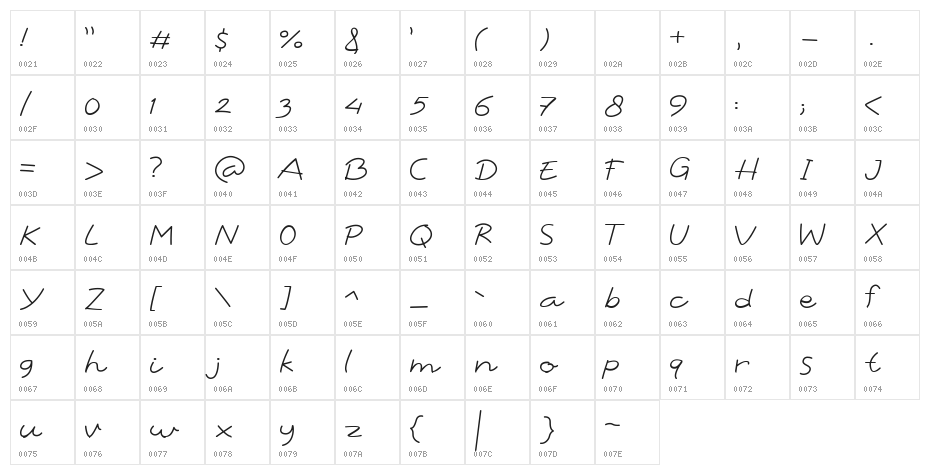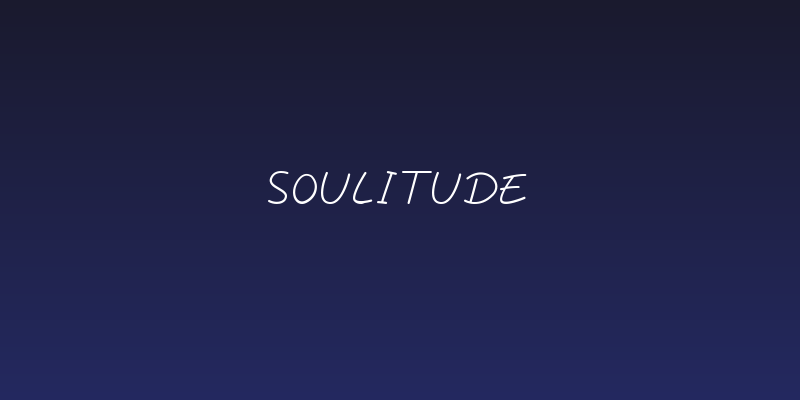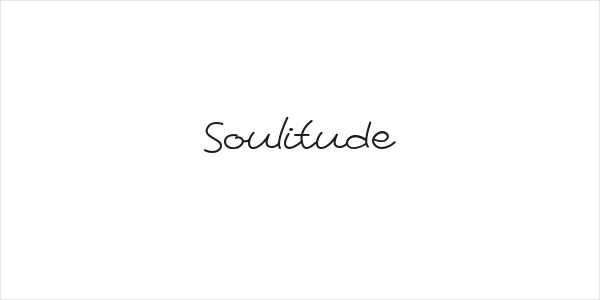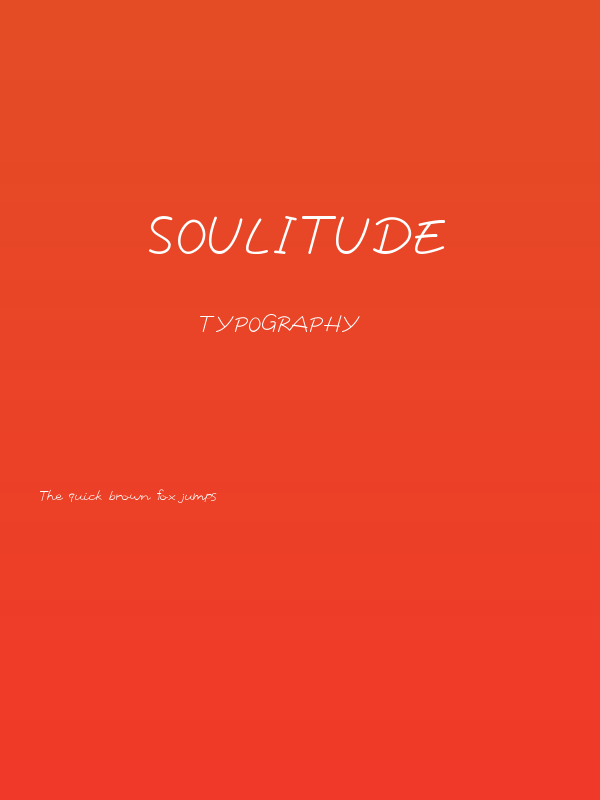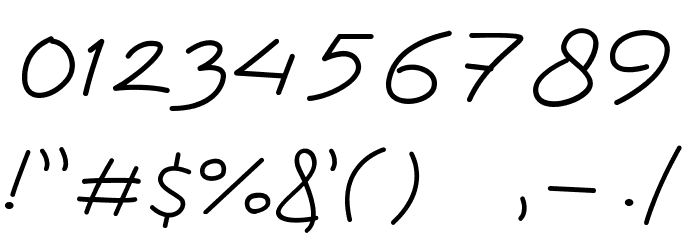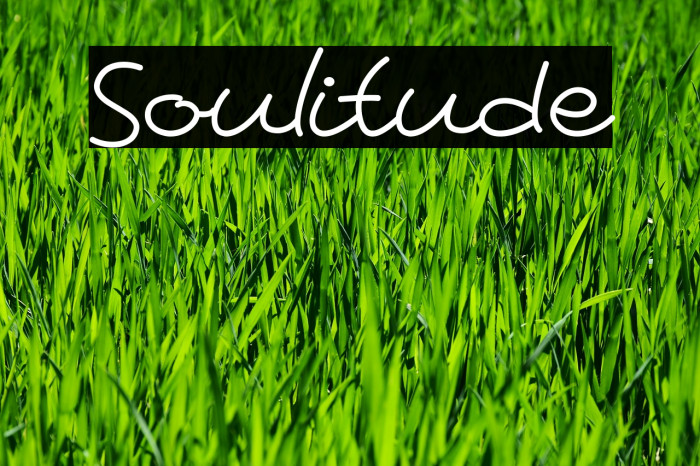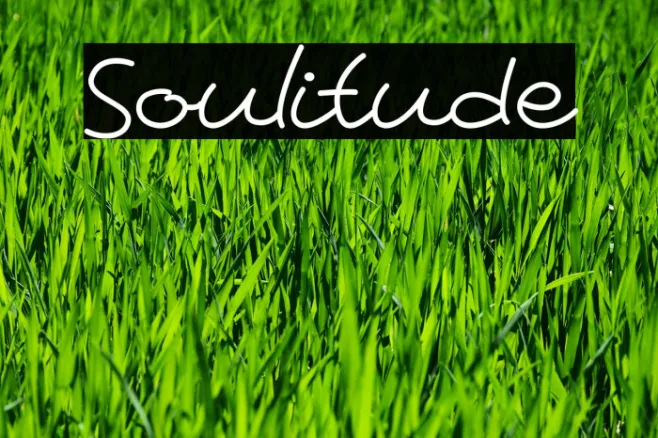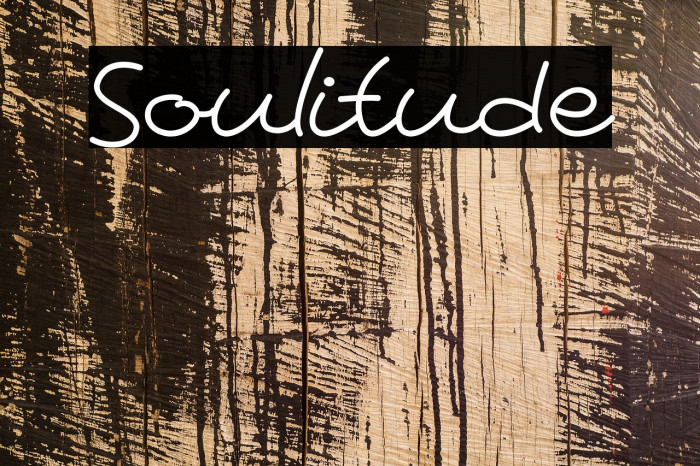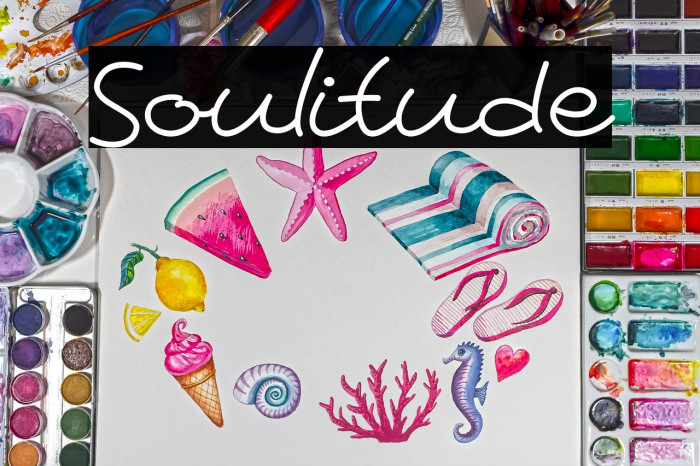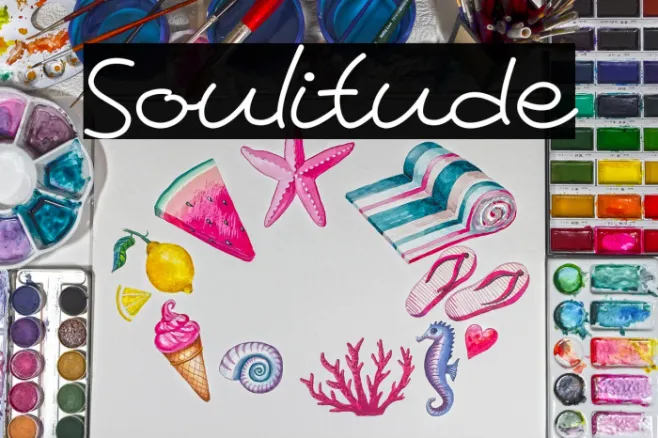
Soulitude Font
Soulitude Description
This font features a casual, handwritten style with a smooth and flowing appearance. The letters are slightly slanted, giving a sense of movement and dynamism. Uppercase letters are distinct and well-defined, while lowercase letters maintain a consistent flow, enhancing readability. The numerals are clear and balanced, matching the overall aesthetic. Special characters are crafted with the same fluidity, ensuring a cohesive look across all text. This font exudes a friendly and approachable vibe, making it suitable for informal and creative projects.
| Proposed Projects | Ideal for personal invitations, greeting cards, casual branding, and creative projects. |